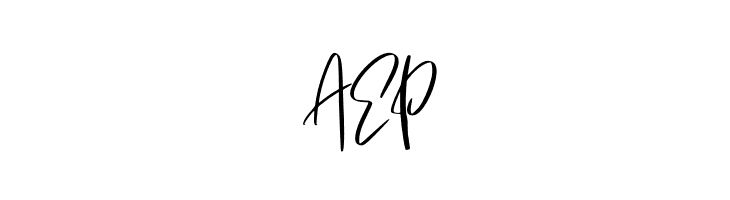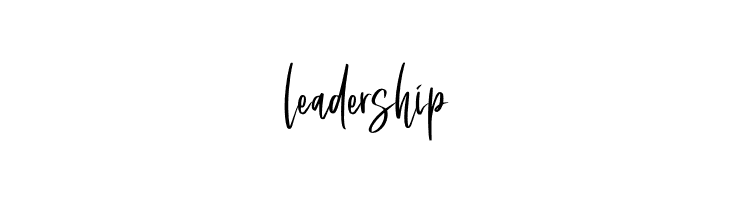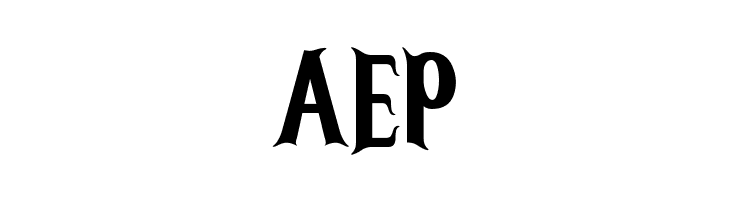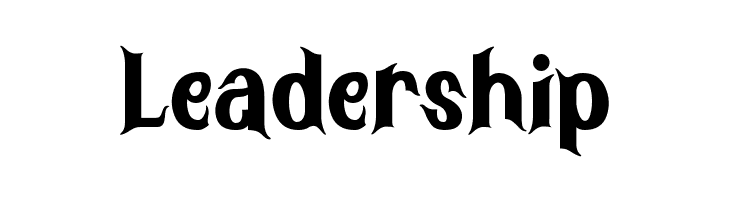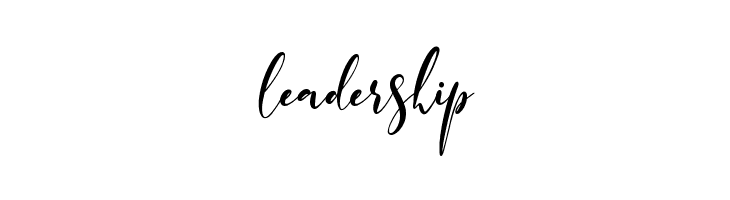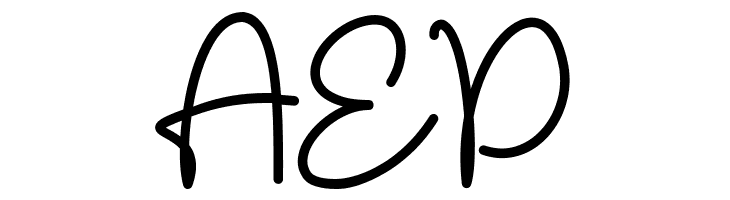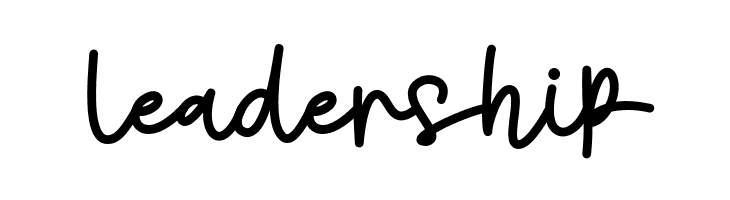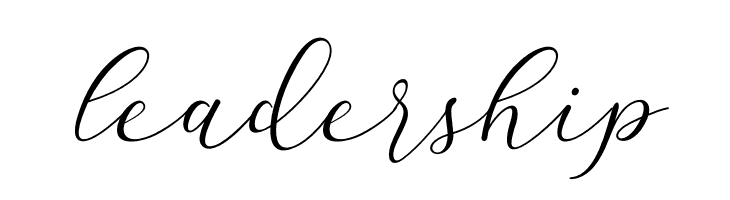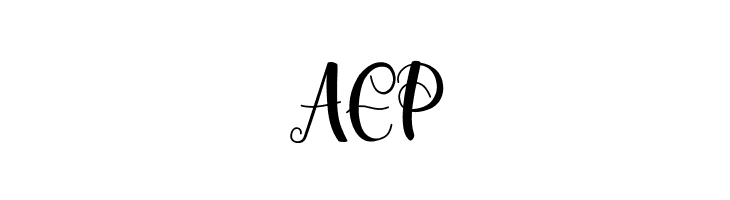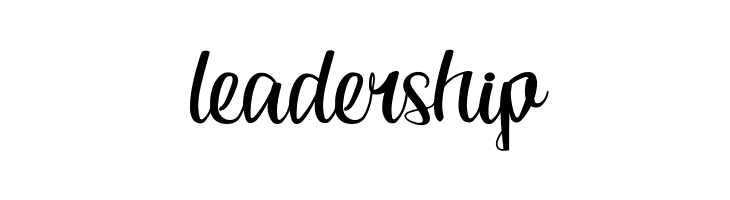
• Salpicado St
A speckled, dynamic font with a playful slant and consistent stroke width.
• SaltyBeach
A bold, 3D-effect font with consistent width and dynamic texture.
• Samarchy
A bold, graffiti-inspired font with sharp, angular lines and a hand-drawn look.
• Samble Tracie_Swash Bold
• Samurai Sword
A bold, angular font inspired by Japanese calligraphy with a modern edge.
• Samurai Sword
• SANDRE Regular
A bold, geometric font with striped and solid sections for a modern look.
• SANDRE-Regular
A modern, geometric font with bold, striped patterns and angular forms.
• Sangkury
A bold, Gothic-inspired font with sharp serifs and dramatic styling.
• SansChiseled ExtraBold
A bold, chiseled font with a three-dimensional effect, perfect for headlines.
• Santos
A bold, hand-drawn font with a vintage, impactful style.
• Sasteria
A playful, casual handwritten font with smooth, flowing lines.
• Sathira
A modern, elegant script font with flowing curves and sophisticated loops.
• Sathyn
A graceful and elegant script font with flowing cursive strokes.
• Saturated
A graceful, cursive script font with elegant, sweeping strokes.
• Saturday Lovers
• SAYsomething!!!
• Scable
A futuristic, geometric font with a modular and consistent design.
• SCARY MONSTA
A bold, jagged font with a rugged and aggressive style.
• Schizophrenia 2
• Schwarzenegger Condensed
• Schwarzenegger Condensed Italic
• Schwarzenegger Italic
• Science Project